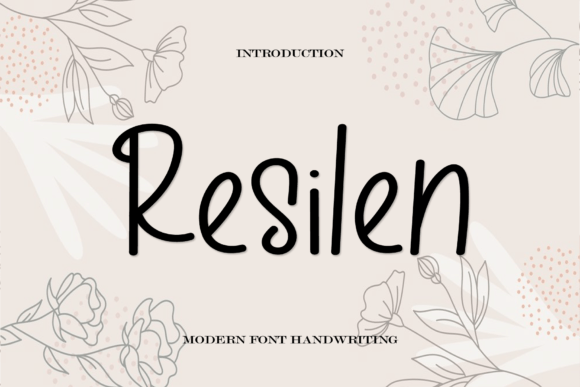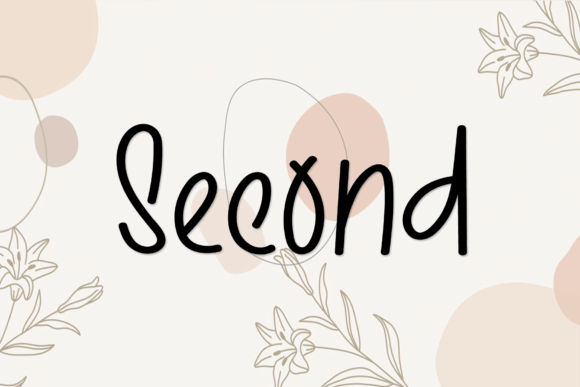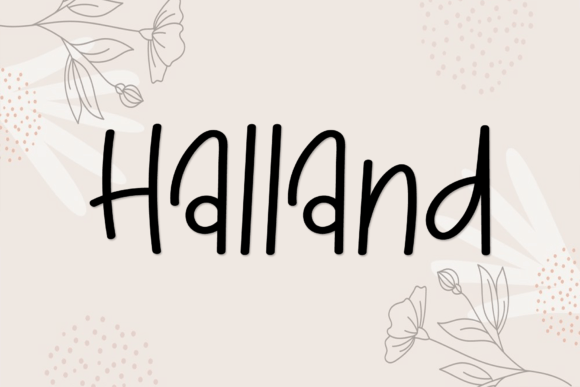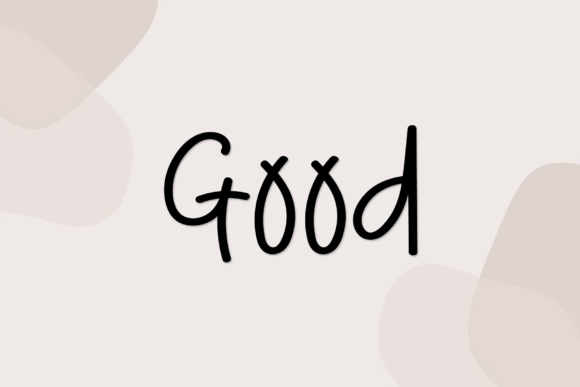
Resilen Font
What Is Resilen Font?
Resilen Font is a classic and simple handwritten script created to bring warmth and clarity to any project. Each letter has smooth curves and clean lines, giving your text a polished yet friendly look. Because of its timeless design, this font fits beautifully into a wide range of styles and themes.
You will notice how effortlessly Resilen adapts to everything from casual to professional designs.
Resilen is a versatile font you can use in many creative applications. For example, it’s ideal for crafts, DIY labels, and handmade products. The handwritten style makes everything feel more personal and genuine.
In addition, it works wonderfully for digital design and social media graphics. If you want your posts to feel fresh and engaging, Resilen helps you create a consistent look that feels approachable.
You can also use it in presentations for business or school. The clear, simple letterforms keep your slides easy to read while adding a touch of personality.
When you design greeting cards or invitations, Resilen makes every word feel thoughtful and warm. Even the simplest messages look special with this script.
Moreover, it’s perfect for posters, book covers, and packaging. Your designs will stand out and look polished every time.
Why Should You Choose Resilen Font?
There are many reasons to consider Resilen for your projects. First, it’s very easy to read, no matter the size. Even small text remains clean and legible.
Also, Resilen pairs nicely with serif and sans-serif fonts. This makes it simple to create layouts that feel balanced and professional.
Designers love that it looks polished straight out of the box, saving time while delivering beautiful results.
Resilen Font adds warmth and authenticity to every project. For example, when you want your work to feel inviting and personal, this font makes it easy.
Even minimalist layouts look more interesting with Resilen’s smooth strokes. Whether you create branding, social media posts, or handmade items, your work will stand out.
Using a premium handwritten script also shows your attention to detail and your commitment to quality. This builds trust with your audience and makes your designs more memorable.
Resilen Font is more than just a typeface—it’s a versatile design tool that helps you communicate ideas with clarity and heart. From crafts and presentations to logos and digital content, this font adapts easily and leaves a lasting impression.